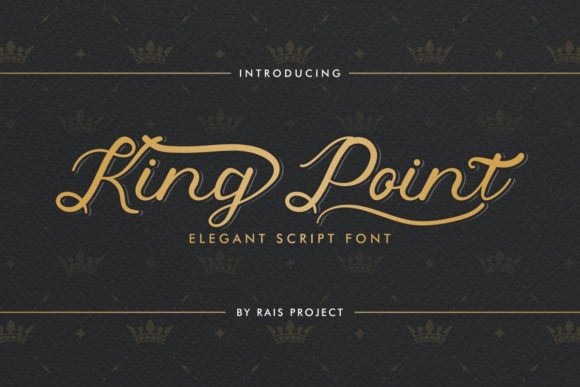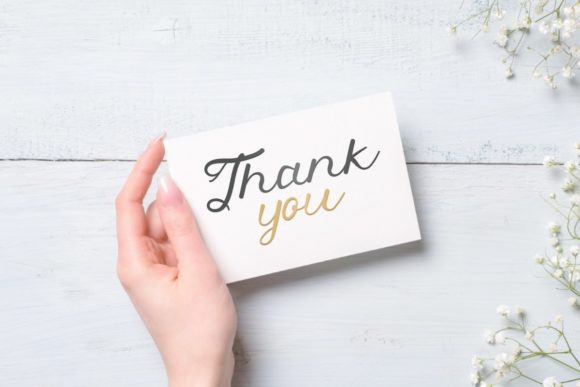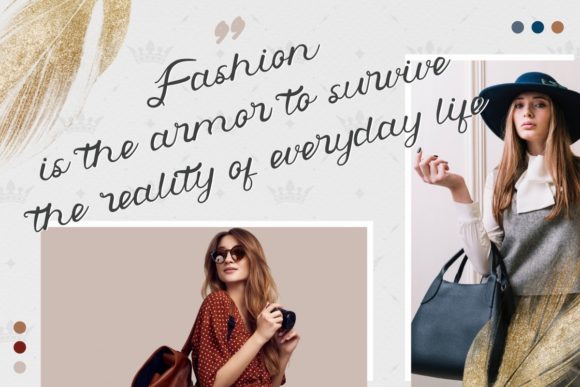
About King Point Font
King Point is a cursive, vintage styled handwritten font. It looks beautiful on a variety of designs requiring a personalized style, such as wedding invitations, thank you cards, weddings, greeting cards, logos and so on.